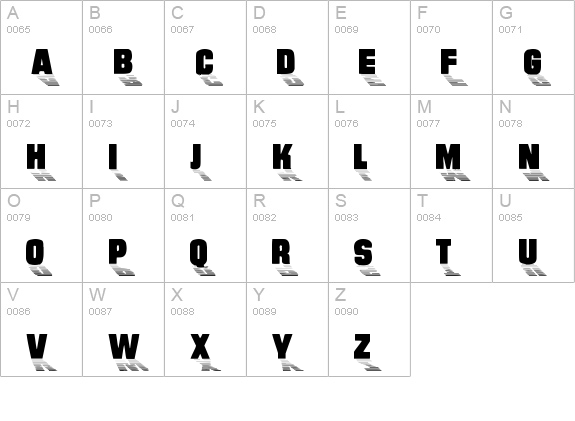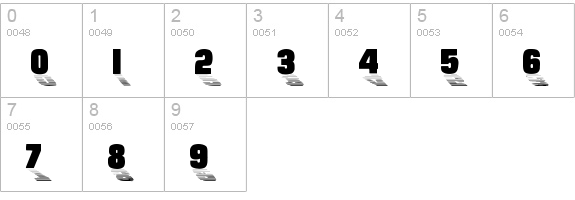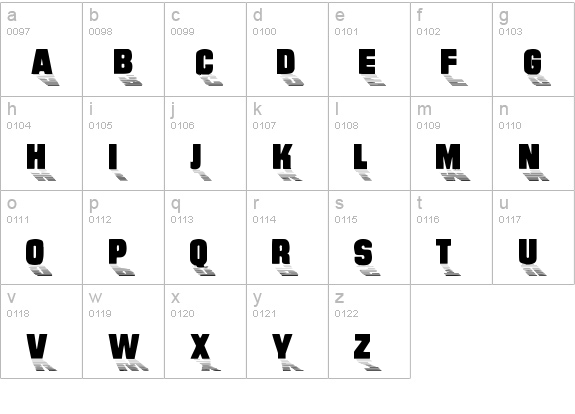
Wharmby Font Details
Wharmby font is a stunningly elegant typeface that effortlessly combines classic sophistication with modern flair. This versatile font is perfect for adding a touch of refinement to any design project, whether it be a logo, branding materials, invitations, or signage. The Wharmby font features clean and well-defined lines, making it incredibly versatile for both digital and print mediums. Its unique letterforms exude a sense of timeless beauty, making it a perfect choice for projects that require a touch of elegance. One of the best things about Wharmby font is that it is available for free. That's right, this stunning typeface can be downloaded at no cost from FontsMarket.com. With just a few clicks, you can have access to this remarkable font and start incorporating its beauty into your designs. Not only is Wharmby font visually appealing, but it is also incredibly easy to use. Its wide range of weights and styles allows you to experiment and find the perfect combination that suits your design needs. Whether you're looking for a bold statement or a delicate touch, Wharmby font has got you covered. So why wait? Head over to FontsMarket.com and download Wharmby font today. With its timeless elegance, versatility, and the fact that it is freely available, Wharmby font is a must-have for any designer or creative individual looking to elevate their projects to new heights.